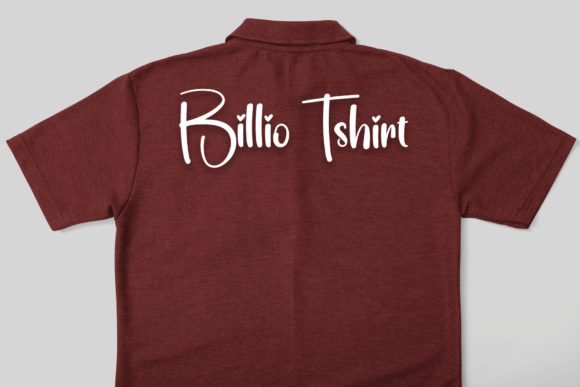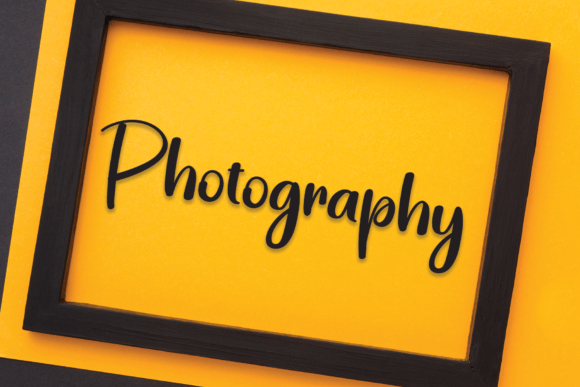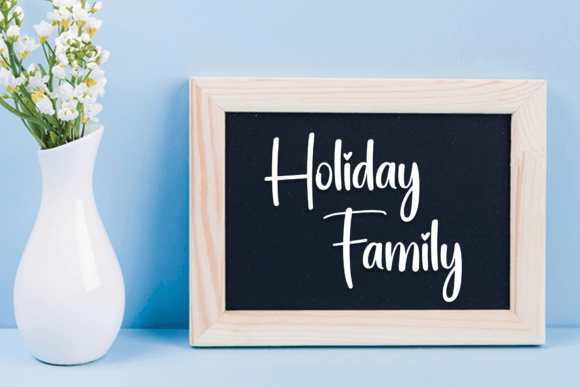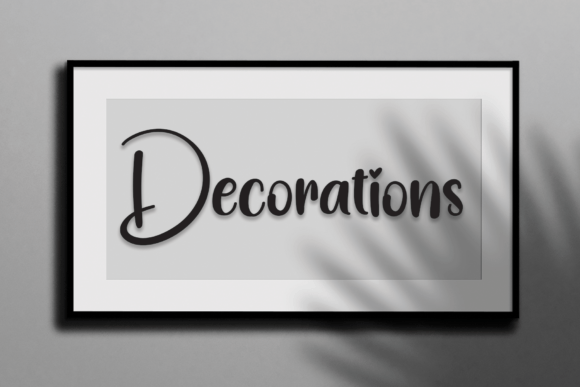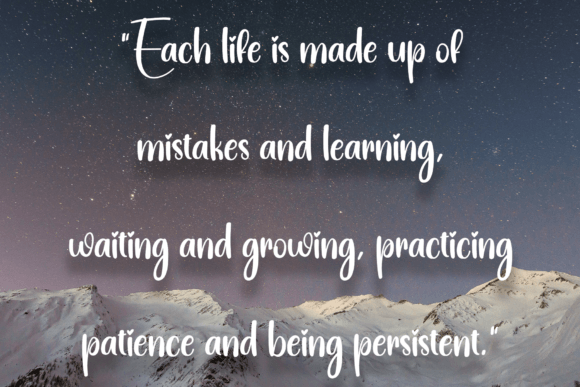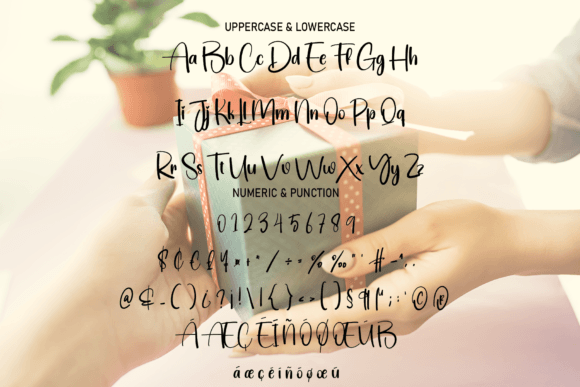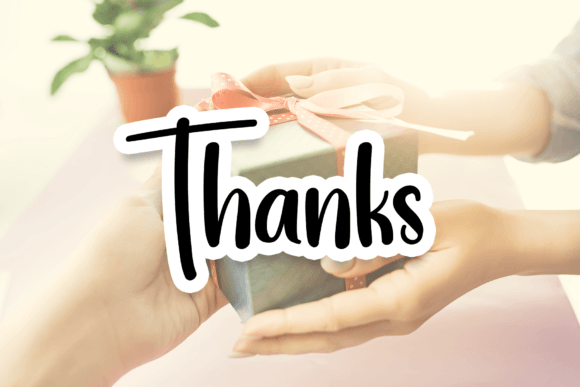
Present Font
About Present Font
The Present Font Download is a bold and stylish handwritten typeface crafted to give your headlines and logotype projects a modern, confident touch. With its strong strokes and dynamic energy, this font makes a powerful statement in any design. Its handcrafted look creates a nostalgic yet contemporary atmosphere, making it the perfect choice for projects that demand attention and personality.
Whether you’re designing logos, posters, or digital graphics, the Present Font provides versatility and charm. It balances elegance and boldness, making it ideal for both classic and trendy designs.
Features of Present Font
When you choose the Present Font Download, you get a font that combines creativity with functionality. Key features include:
• Bold handwritten style with natural rhythm
• Dynamic strokes that add energy to your designs
• Strong legibility in both print and digital formats
• Suitable for large headlines and logotypes
• Nostalgic yet modern style that fits multiple themes
Best Uses for Present Font
The Present Font Download can be used across a wide range of creative projects:
• Branding and logos – Craft bold logos that convey confidence and uniqueness
• Headlines and titles – Perfect for magazines, websites, and posters
• Product packaging – Adds a handcrafted, stylish appeal to labels and wraps
• Social media graphics – Make your posts stand out with bold, dynamic lettering
• Event promotions – Flyers, invitations, and banners that demand attention
• Creative projects – DIY crafts, greeting cards, and personalized designs
Why Choose Present Font
The Present Font Download stands out from standard handwritten typefaces thanks to its bold character and nostalgic undertones. It strikes a balance between expressive calligraphy and modern style, giving your projects both sophistication and strength.
Designers love it because it adapts easily to different branding needs. Whether you’re building a vintage-inspired identity or a contemporary digital design, Present Font delivers consistent results. Its readability and strong lines ensure it looks great in both large displays and smaller text layouts.
The Present Font Download is a bold, stylish, and versatile typeface that elevates every project. Its handcrafted look, combined with strong strokes and dynamic design, makes it perfect for headlines, logotypes, branding, and beyond. By blending nostalgic charm with a modern vibe, Present Font ensures your creations always stand out.